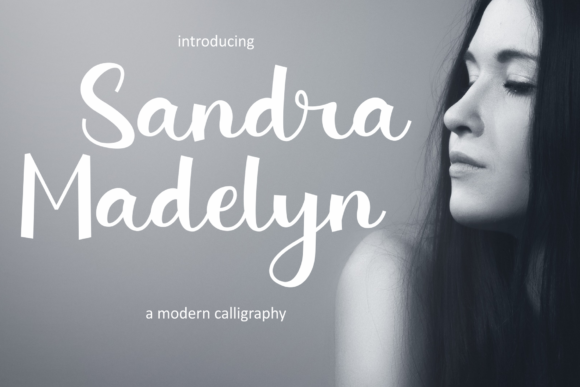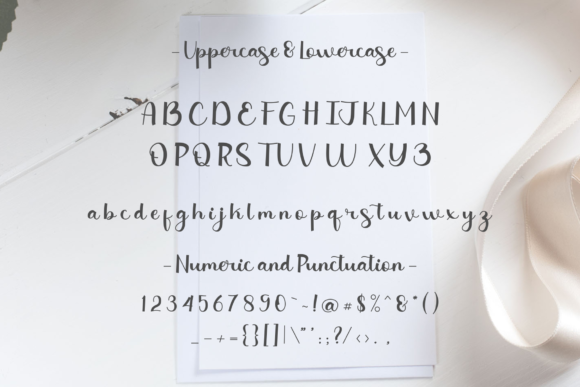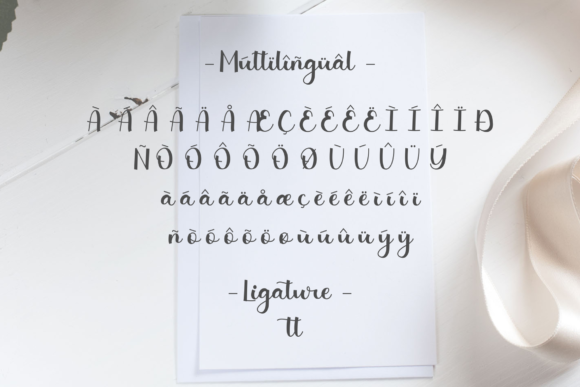
About Sandra Madelyn Font
Sandra Madelyn is a flowing handwritten font, described by an elegant touch, perfect for your newest projects. Get ispired by its incredibly distinct and timeless style and use it to create spectacular designs!